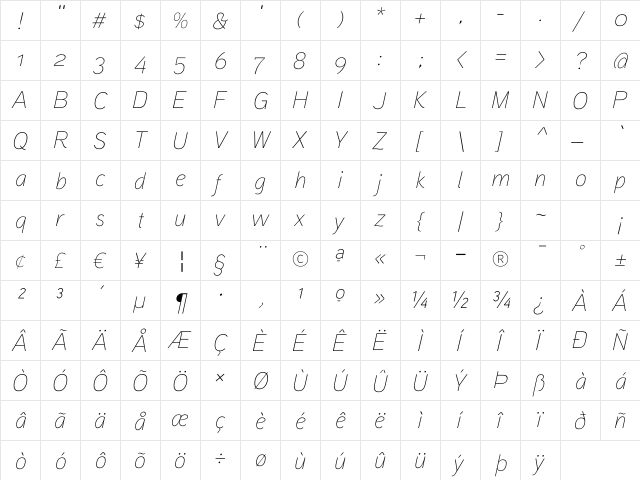
Aaux ProThin Italic OSF Regular Font Preview
Design Context for Aaux ProThin Italic OSF Typeface
Aaux ProThin Italic OSF takes a measured approach to typography — its balanced proportions and neutral character make it a reliable workhorse for both digital and print work. Its italic angle brings a sense of urgency and motion to the letterforms. Its slender proportions lend an understated elegance to any composition.
Pro Tip: Use Aaux ProThin Italic OSF for emphasis, pull quotes, and subheadings where its slanted energy can add rhythm to the layout.